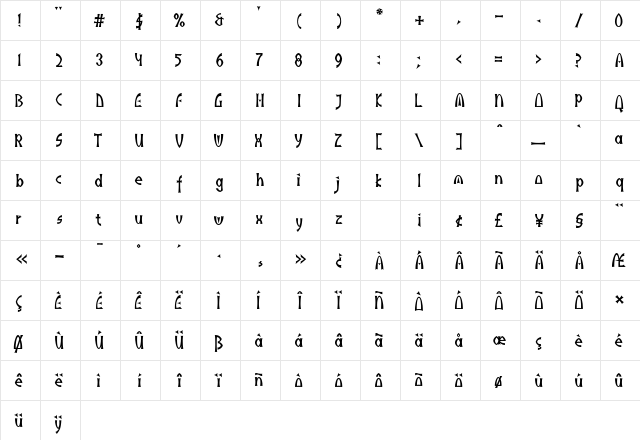
IndusLL Bold
Design Context for IndusLL Typeface
IndusLL is a composed and adaptable typeface that performs quietly and consistently across a wide range of design contexts. The heavy weight commands attention and anchors typographic hierarchies.